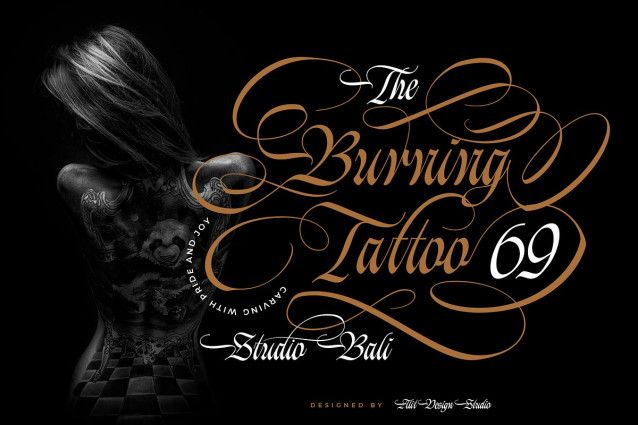
Grand Milky Font
Grand Milky Typeface, a digital calligraphy masterpiece that fuses the strength and boldness of blackletter with the elegance of a free-flowing script. Designed to radiate a strong, masculine, and fearless aura, Grand Milky is the perfect choice for designers looking to make a bold statement.
Inspired by the art of custom tattoos, streetwear culture, and premium labels, this font is designed to stand out. Each letter is a work of art in itself, featuring sharp strokes, dramatic contrast, and adorned with beautifully winding swashes that still maintain a fierce impression.
With over 934 glyphs, including a wide range of alternate character sets and ligatures, Grand Milky offers limitless creative freedom. Create unique and personal typographic compositions, as if you were writing them by hand yourself.